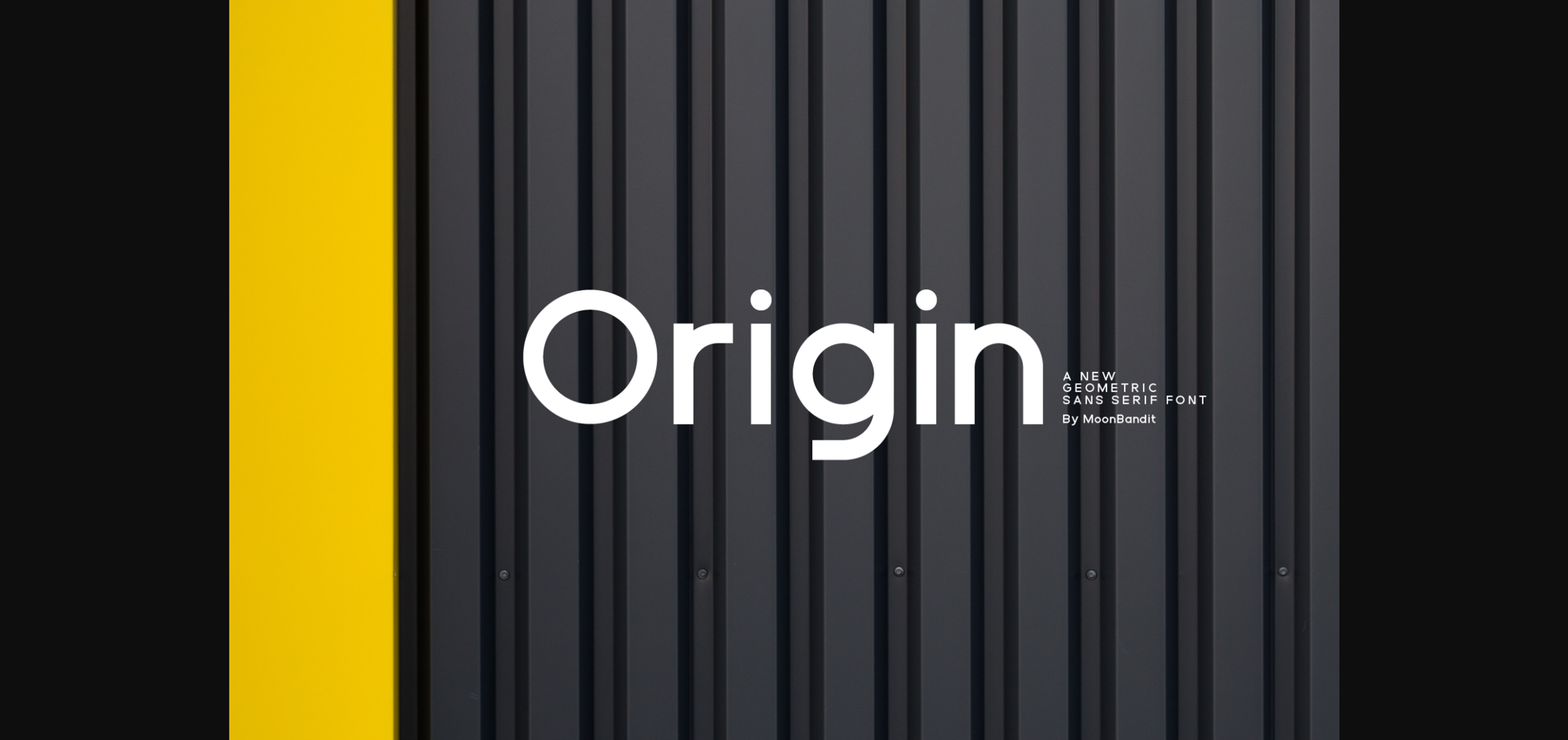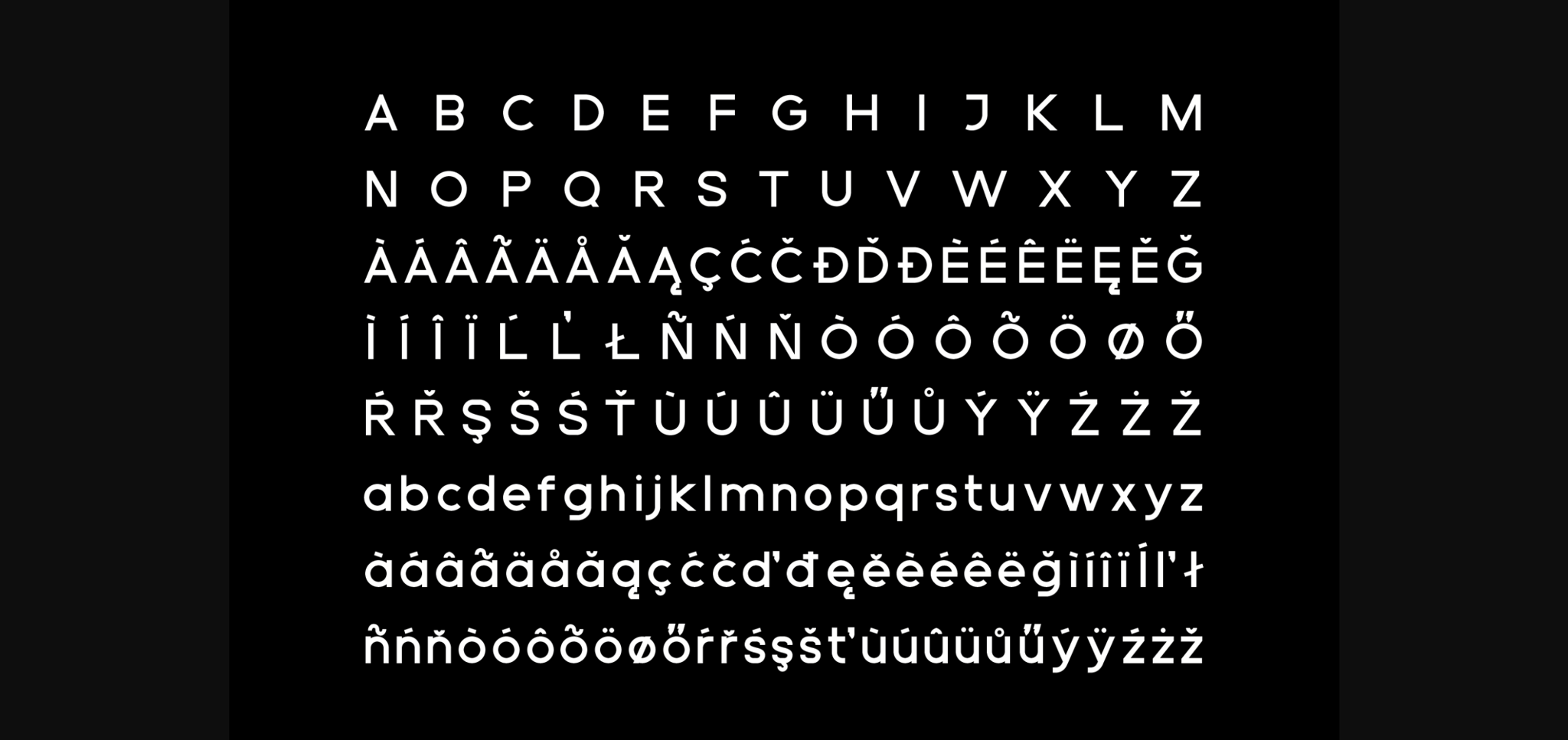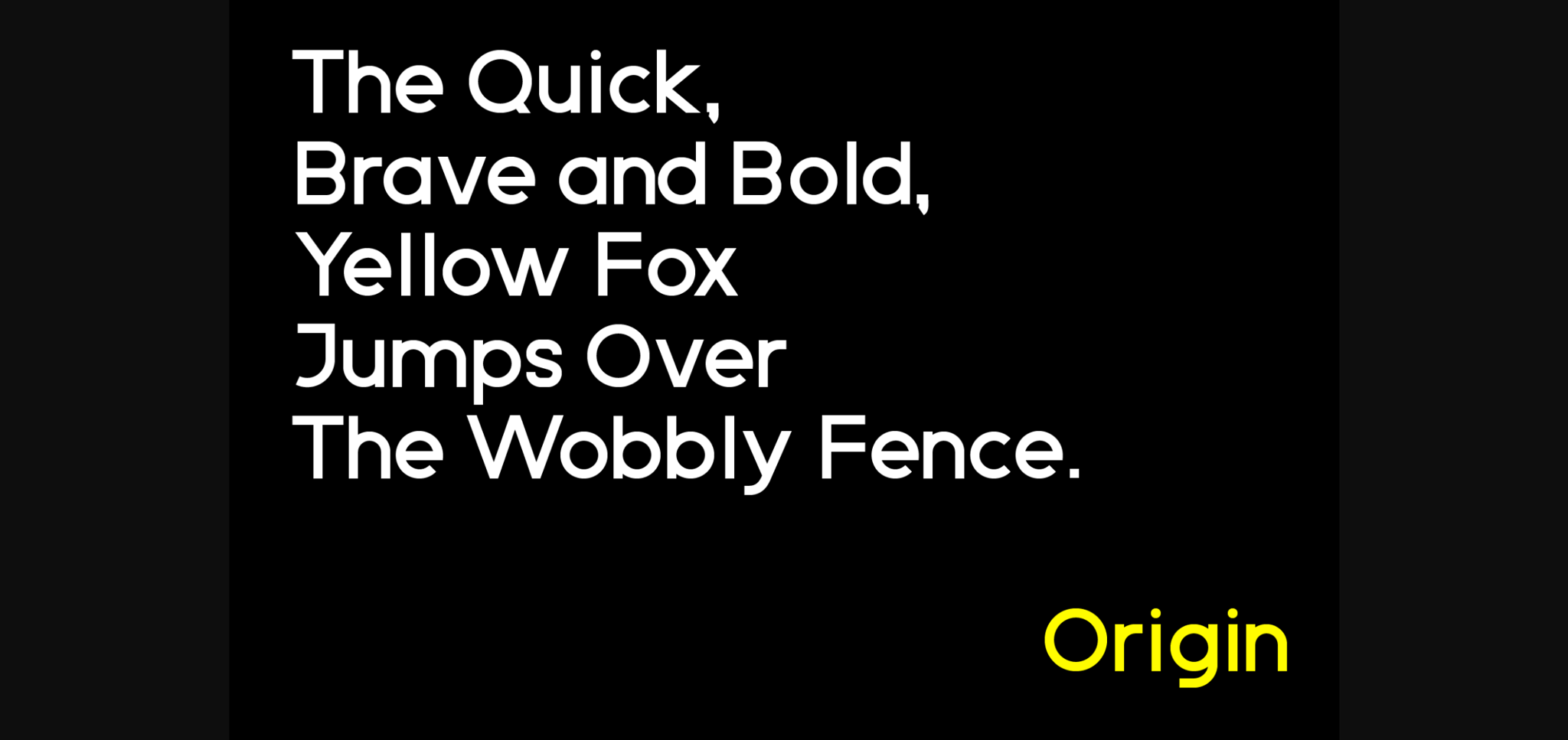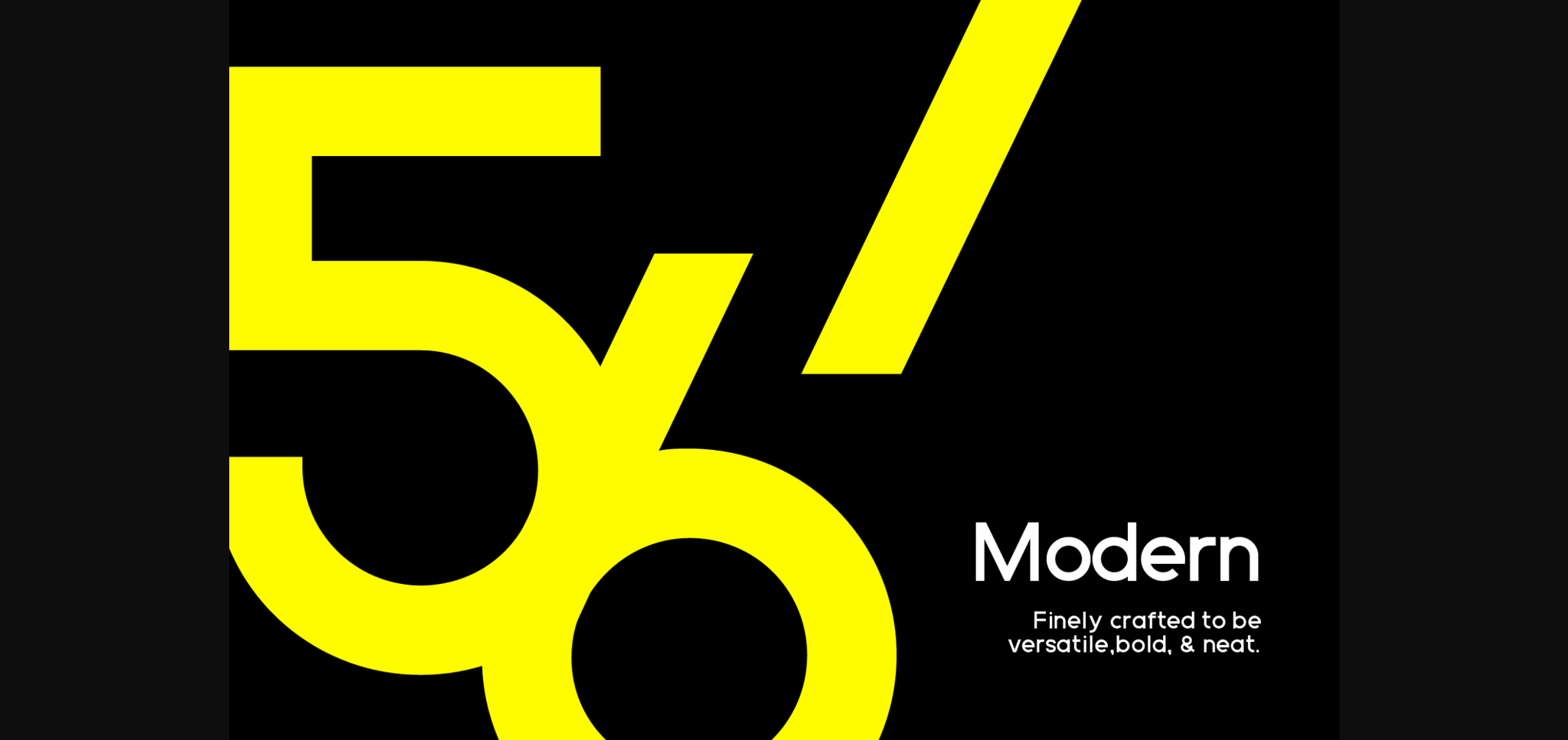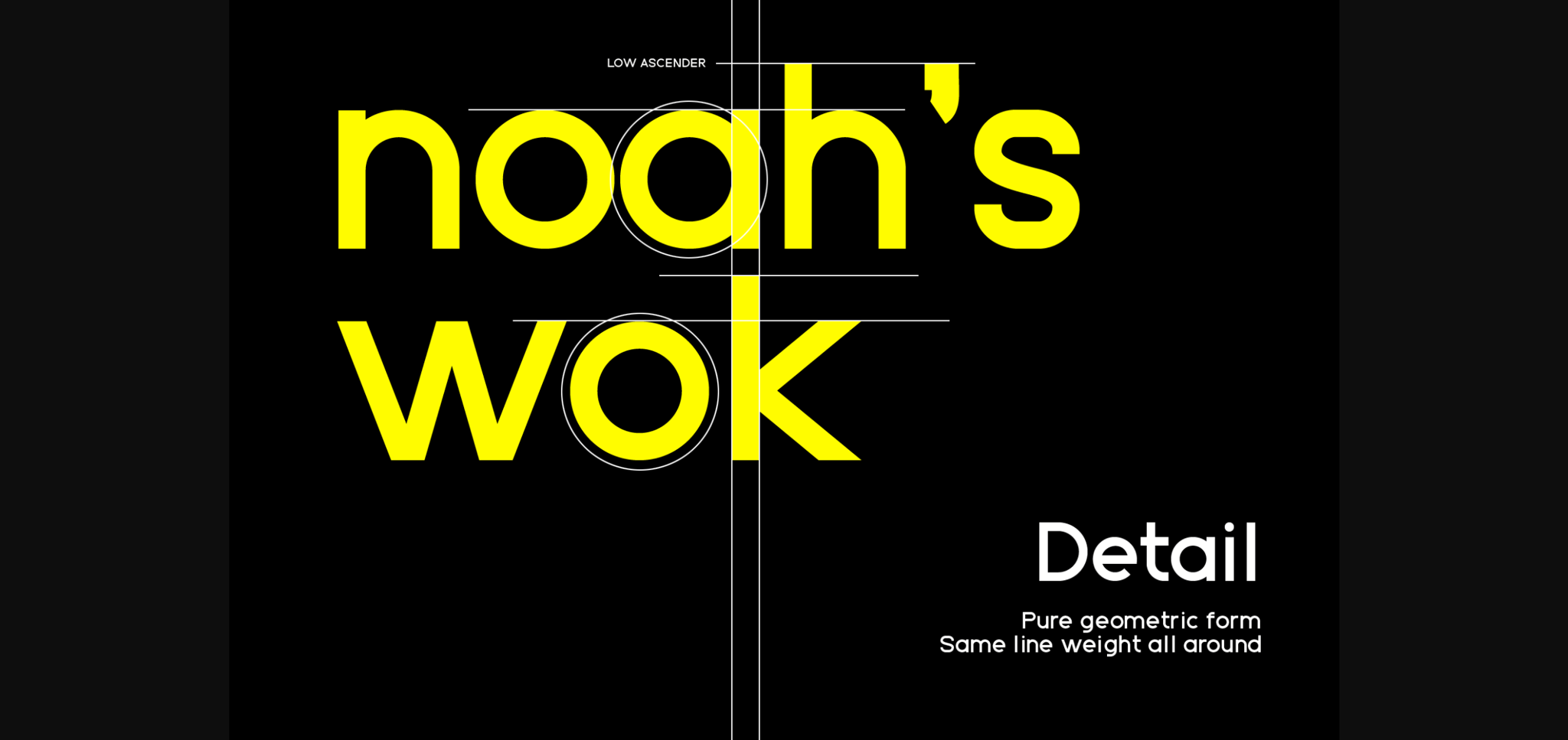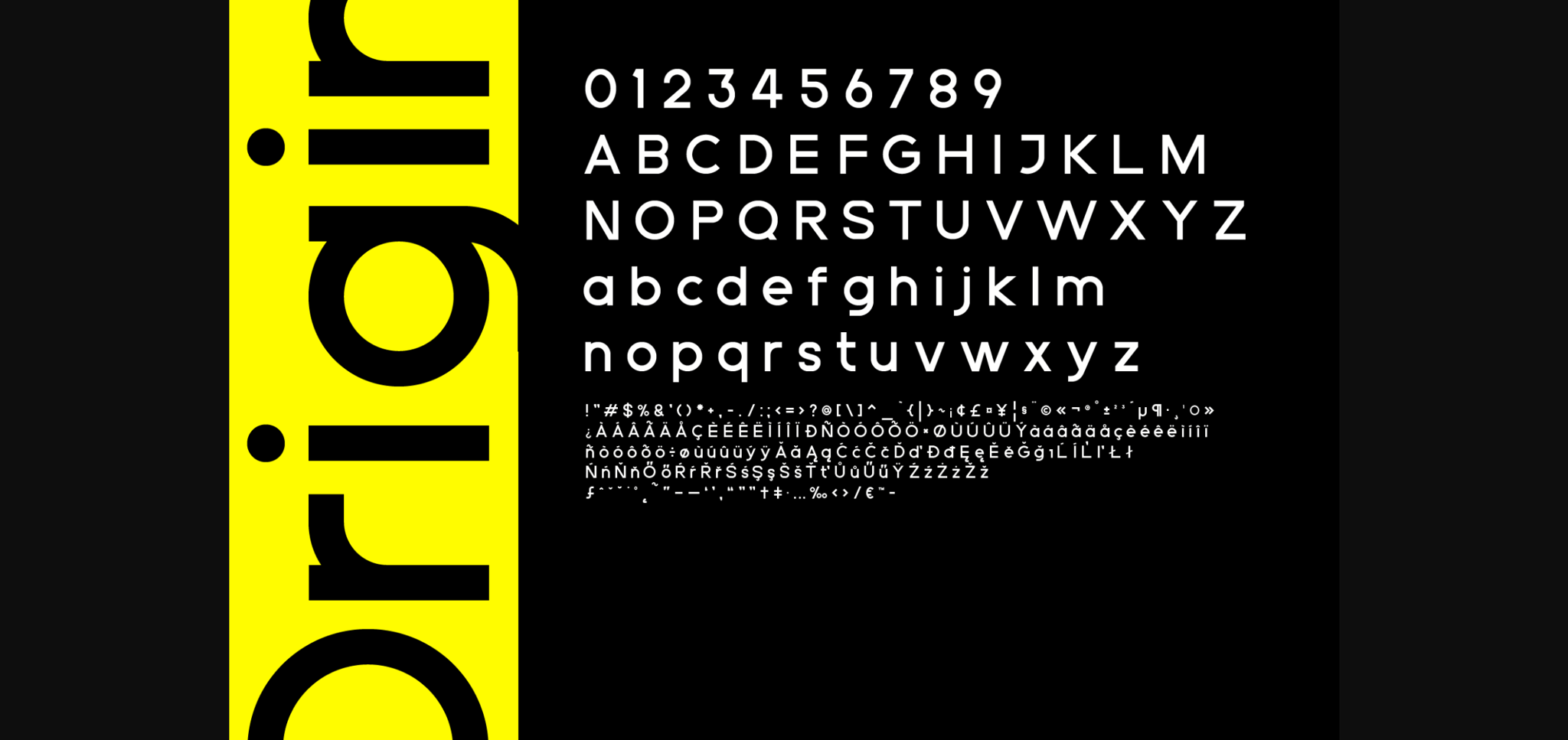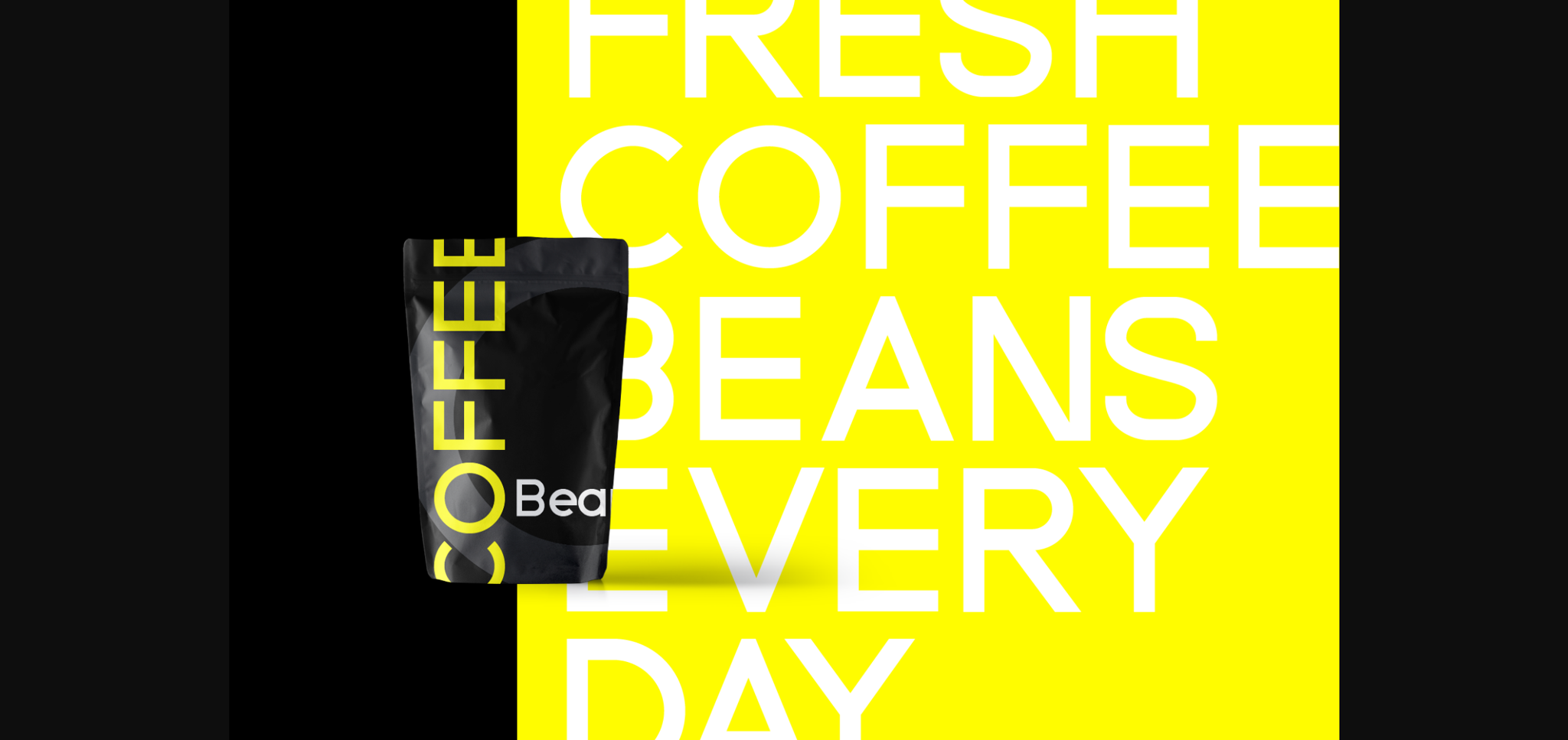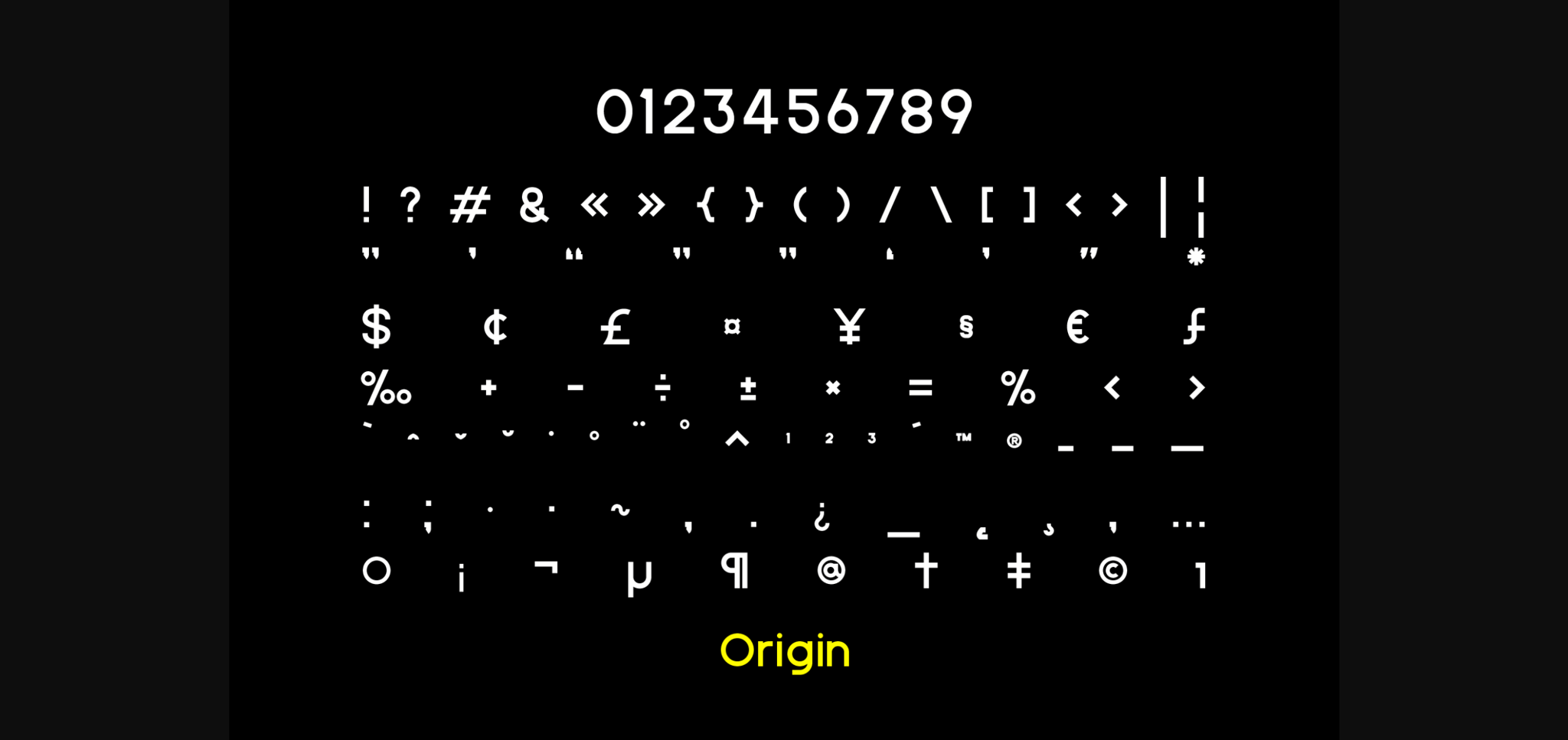
HomeSans Serif FontsOrigin Font Sans Serif Fonts Origin Font FacebookXPinterestWhatsApp 1 of 10 ... Origin Font Poster 2... Origin Font Poster 3... Origin Font Poster 4... Origin Font Poster 5... Origin Font Poster 6... Origin Font Poster 7... Origin Font Poster 8... Origin Font Poster 9... Origin Font Poster 10... About Origin Font Origin is a minimal and neat sans serif font. It can easily be matched to an incredibly large set of projects, so add it to your creative ideas and notice how it makes them stand out! DOWNLOAD NOW People also explored Linebrush Font Charlotte Script Font Sheylamte Font Avagan Font Enthollogie Font Neo Stone Font Storydeq Font Riseberry Font Bightown Font 507 0 TagsOriginOrigin Font Previous articleMinimalis Home FontNext articleRacetrack Font LEAVE A REPLY Cancel reply Comment: Please enter your comment! Name:* Please enter your name here Email:* You have entered an incorrect email address! Please enter your email address here Website: Save my name, email, and website in this browser for the next time I comment. Personal Use Free Child Witch Personal Use Free Read more about this font Grillin Personal Use Free Read more about this font Krait Personal Use Free Read more about this font Bonhomie Personal Use Free Read more about this font BLOG Free Fonts Risk: Why Free Fonts Can Be Dangerous for Designers Free Fonts Risk: Why Free Fonts Can Be Dangerous for Designers Using free fonts is a common practice in web and graphic design. However, the... Top 10 Handwritten Fonts That Elevate Your Designs Best Fonts for YouTube Videos: Make Your Thumbnails Stand Out How to Cut Any Font on Cricut: Convert a Font to SVG (Free)